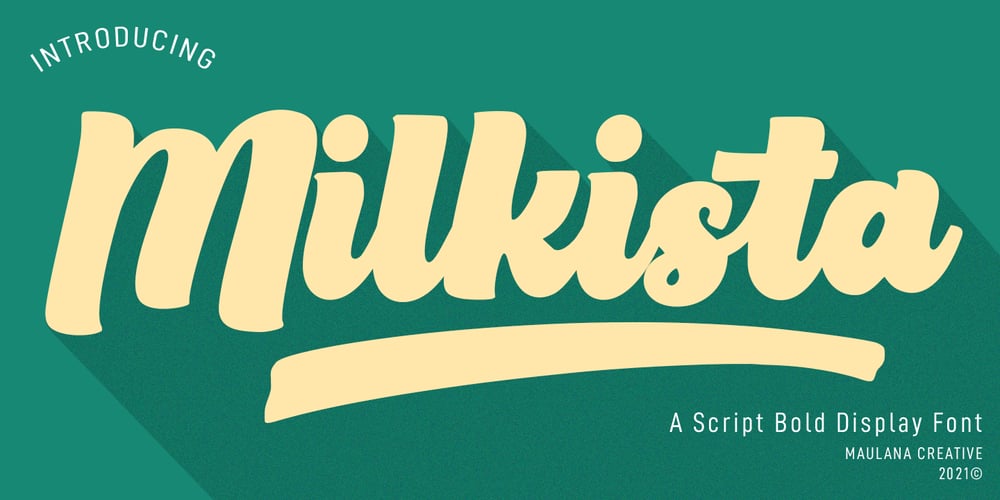
Milkista Font Family was designed by Gilang Maulana and published by Maulana Creative. Milkista contains 2 styles and family package options. Milkista is a vintage script font. Inspired by the retro print from the movies poster in the late 70’s. With bold stroke, italic and fun character with a bit of ligatures and swashes. To give you an extra creative work. Milkista font support multilingual more than 100+ language. This font is good for logo design, Social media, Movie Titles, Books Titles, a short text even a long text letter and good for your secondary text font with sans or serif. Make a stunning work with Milkista font. Cheers, MaulanaCreative